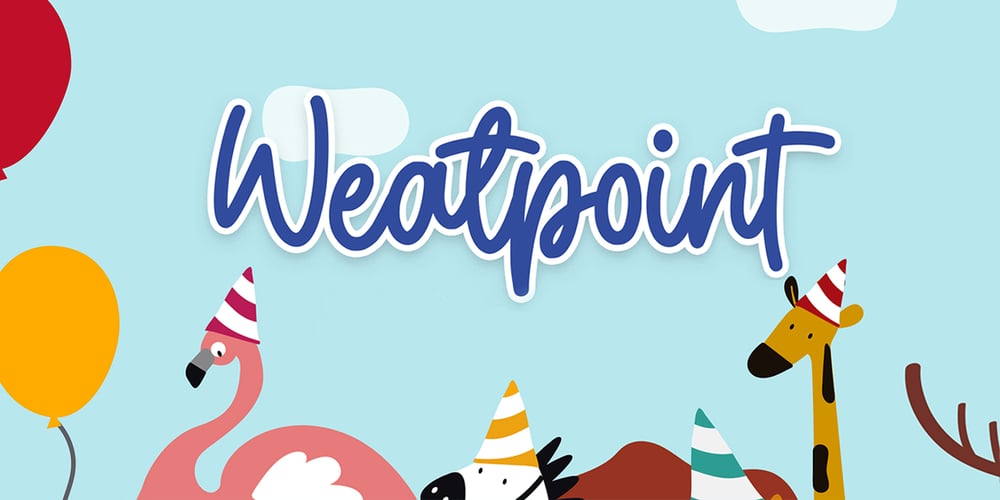
Weatpoint Font Family was designed by Virgiawan Listanto and published by Stringlabs Creative Studio. Weatpoint contains 1 styles and family package options. Weatpoint is a playful and beautiful handwritten font. It’s great for comics, cartoons, birthday invitations, and any creative project that needs a fun look! Weatpoint is a flowing and elegant handwritten font, created with the help of a brush pen. Get inspired by its unique and beautiful style and add it to your favorite designs!